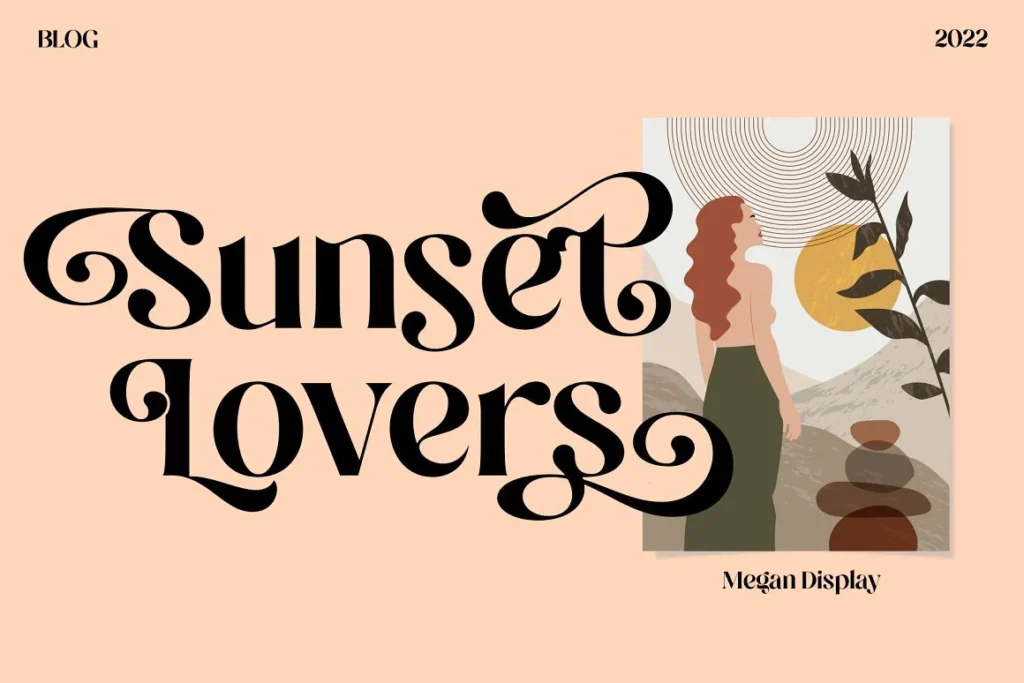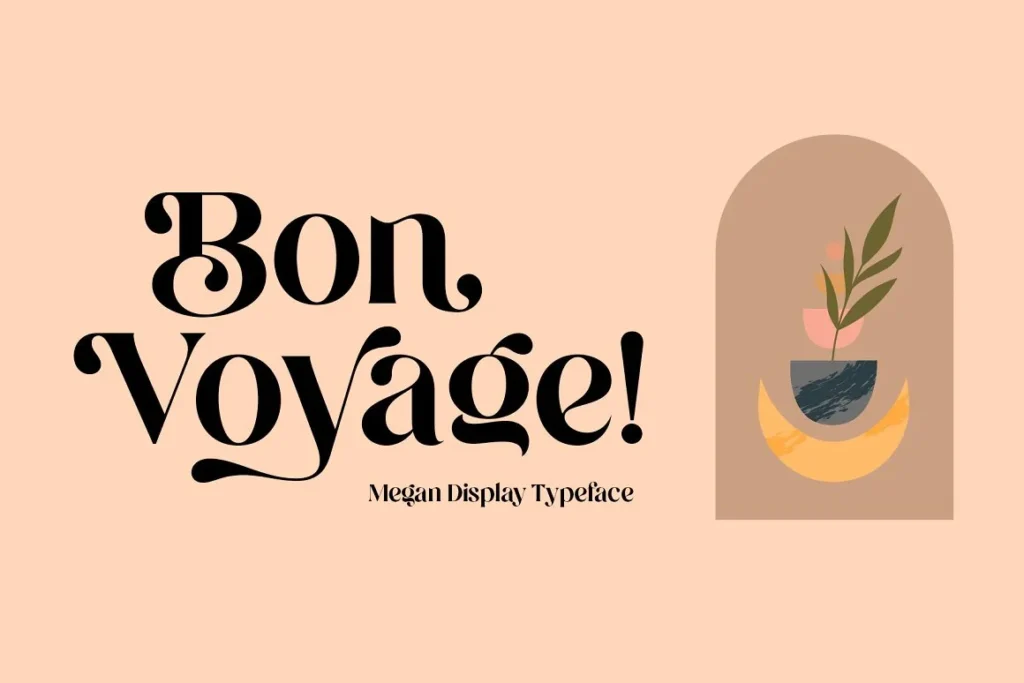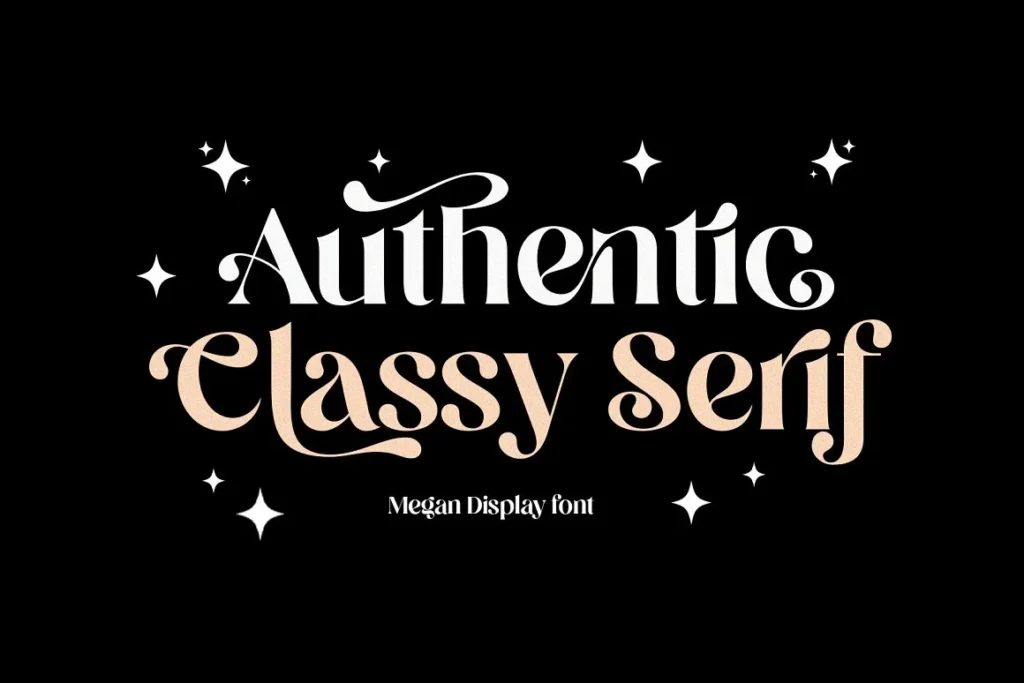
๐ Discover the magic of the Megan Display Font A Sans Serif Font โ A captivating sans serif font that brings your creativity to life!
๐จ In this video, we dive deep into the elegant aesthetics and versatility of the Megan Display Font, showcasing its unique features and endless applications.
Megan Display Font A Sans Serif Font a designer, content creator, or typography enthusiast, youโll learn tips on how to incorporate this stunning sans serif font into your projects for maximum impact.